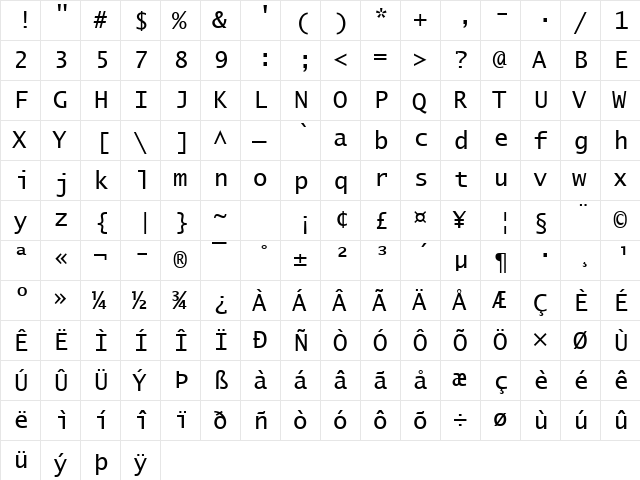
Lucida Becker Sans Typewr Regular
Design Context for Lucida Becker Sans Typewr Typeface
Lucida Becker Sans Typewr is a composed and adaptable typeface that performs quietly and consistently across a wide range of design contexts.